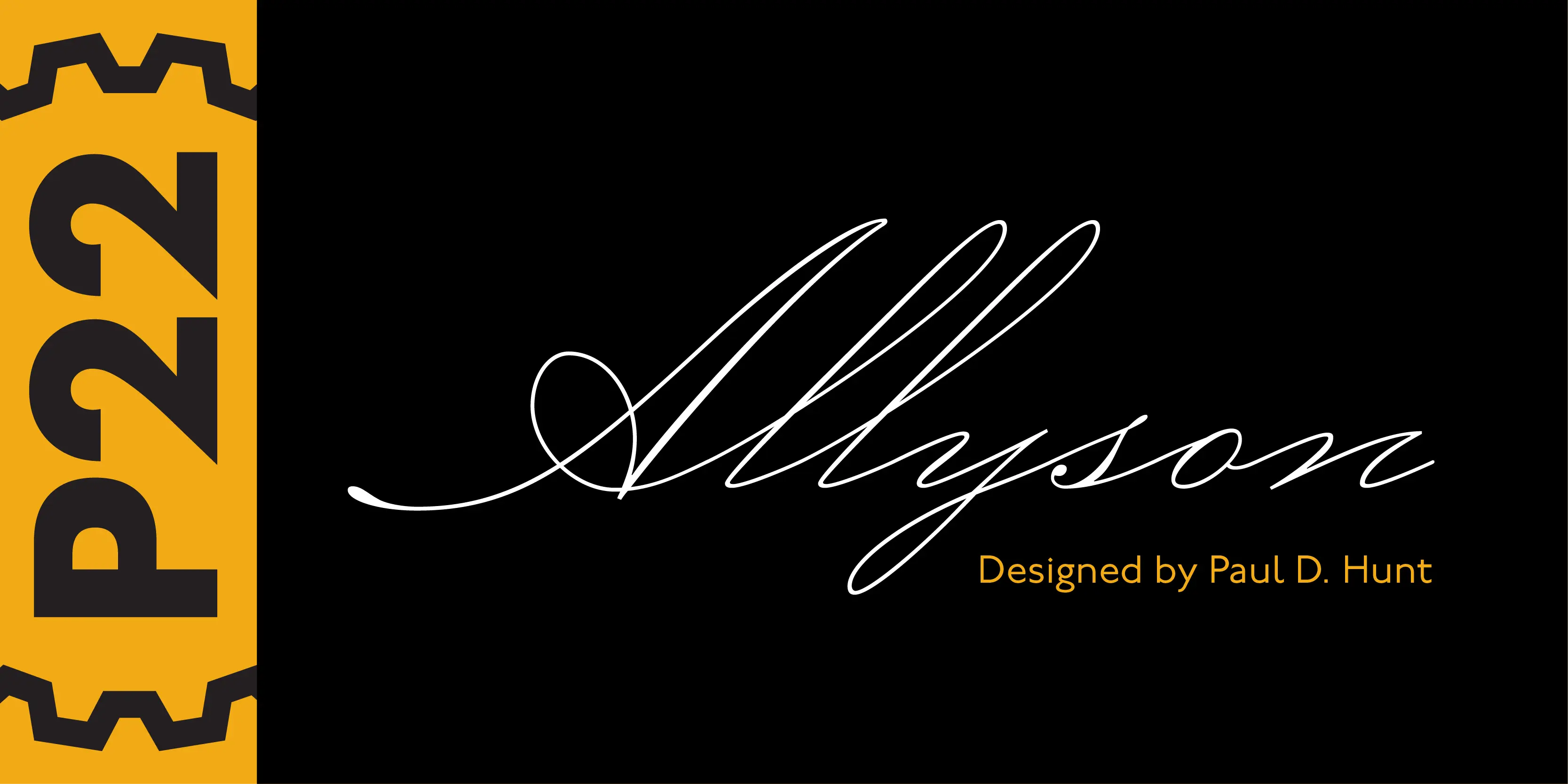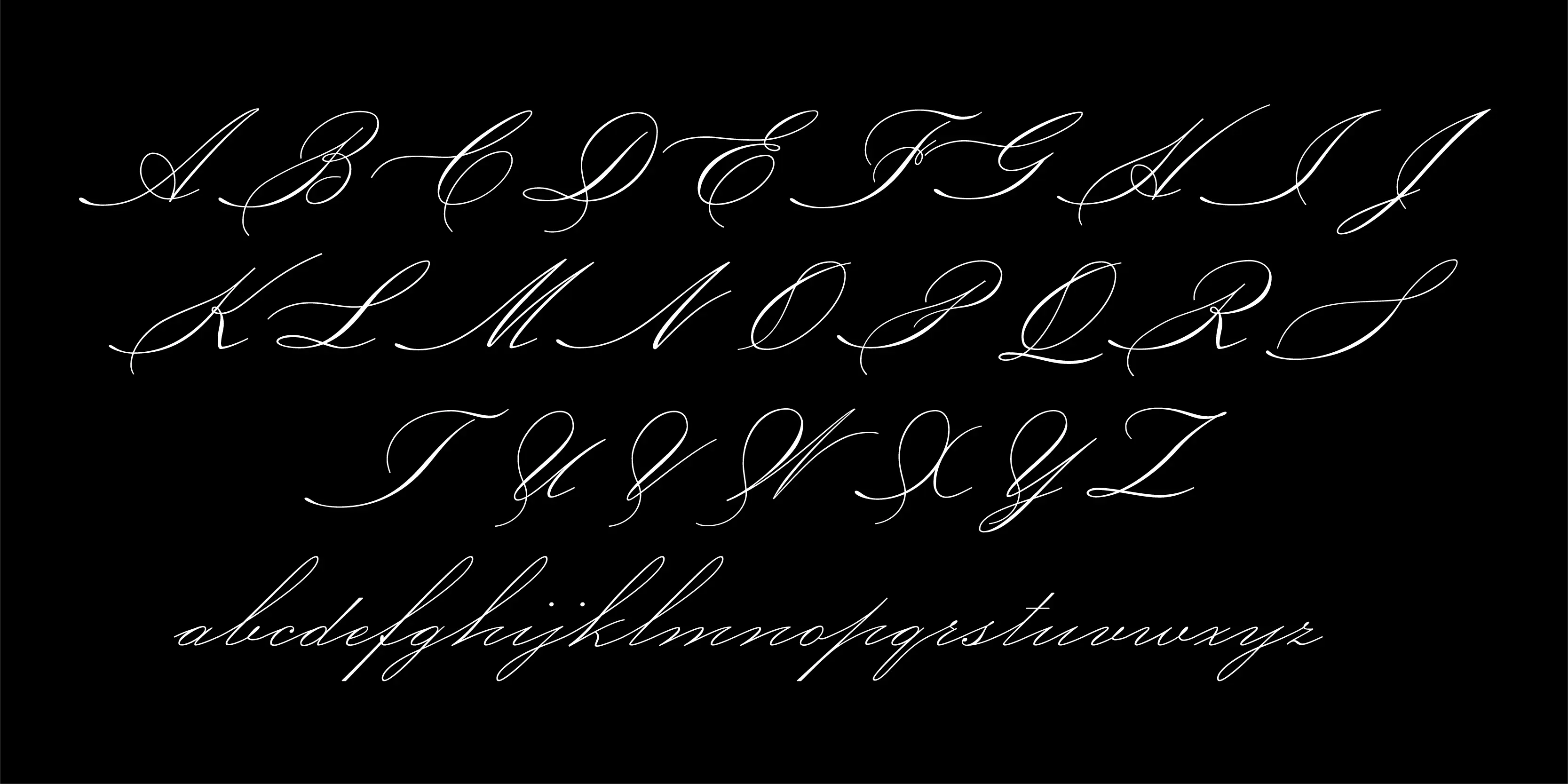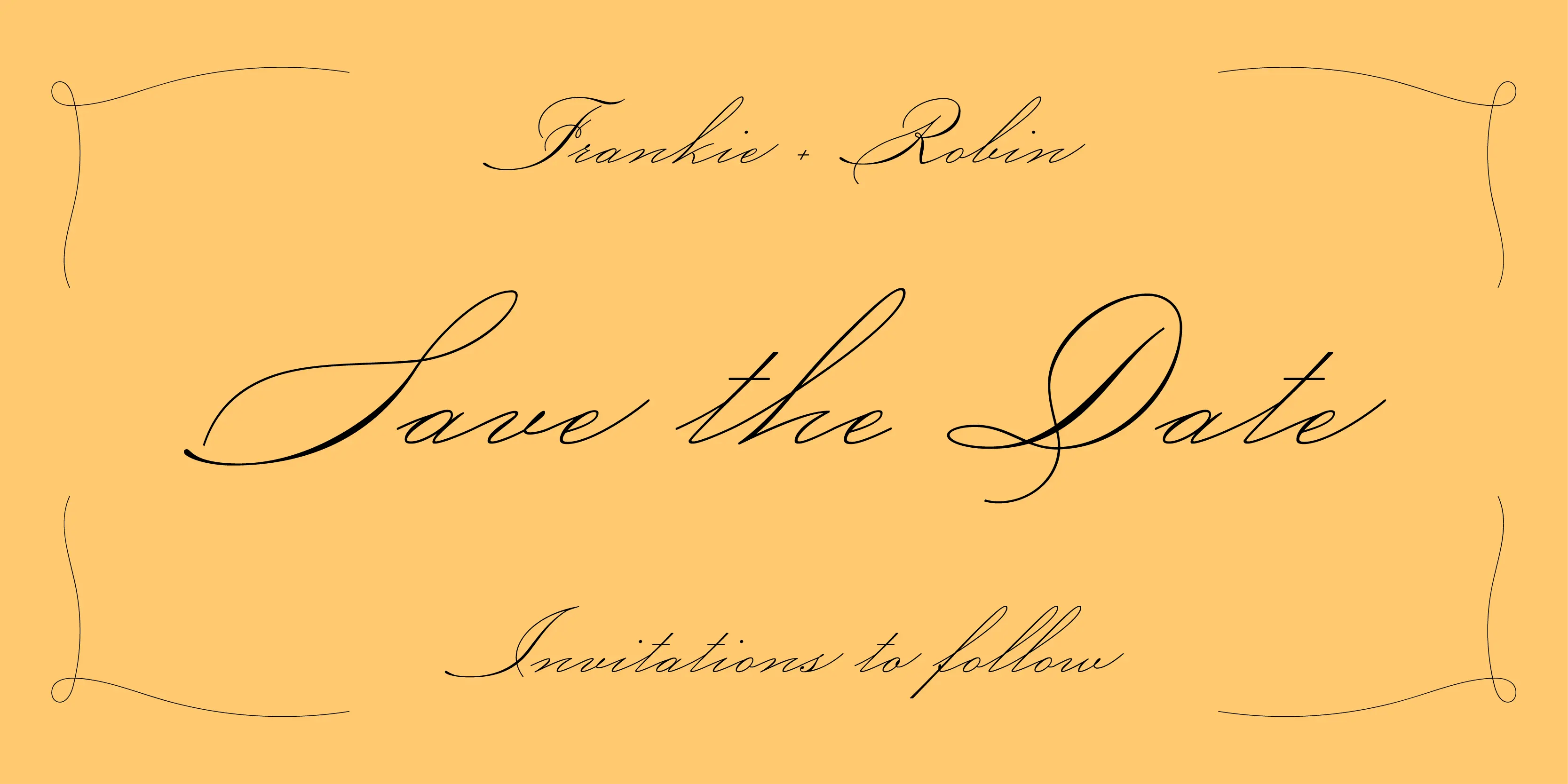
Allyson Font
Allyson
P22 Allyson is based on an old metal font by Barnhart Bros. & Spindler named Hazel Script. This font is perfect for elegant invitations and certificates.
• Fractions
• Ordinal Numerals
• Ornaments
• Subscript
• Superscript
• Swashes
Ornaments
Swashes
Stylistic Set 1
Stylistic Set 2
Stylistic Set 3
Stylistic Set 4
Fractions
Ordinals
Scientific Inferiors
Superscript
Subscript
Numerators
Denominators